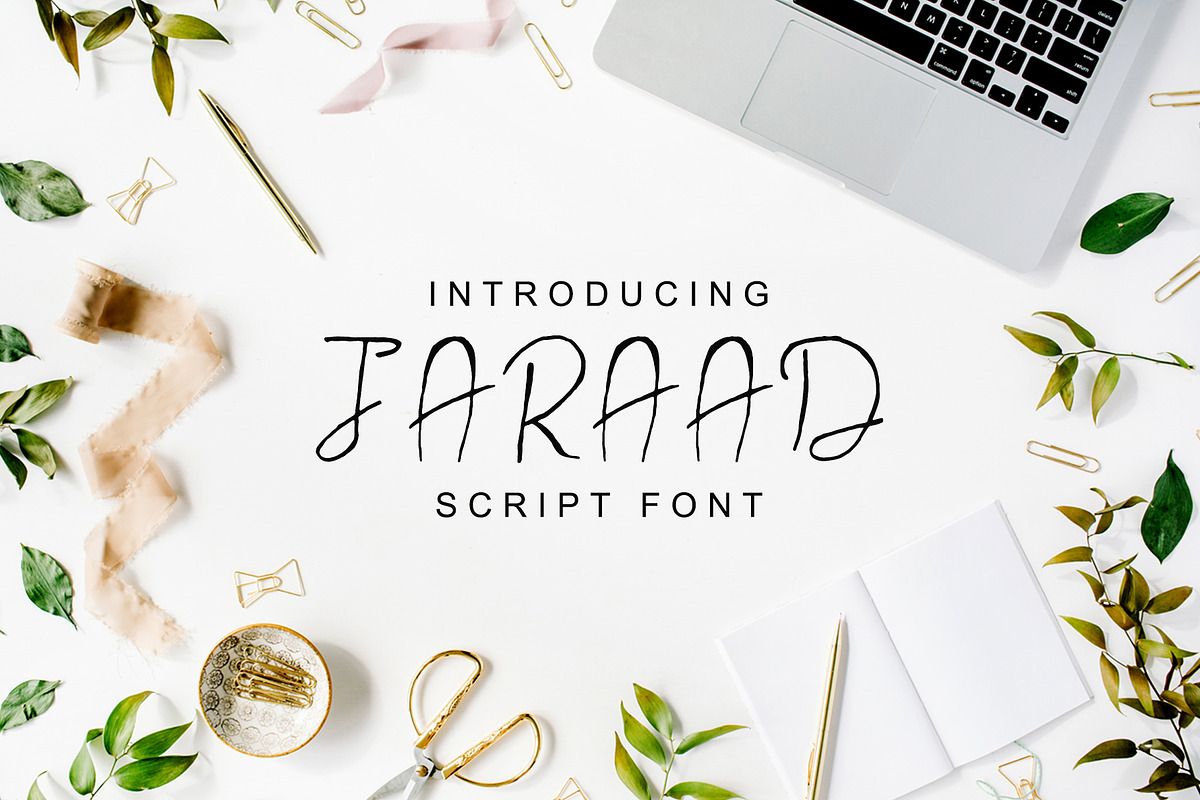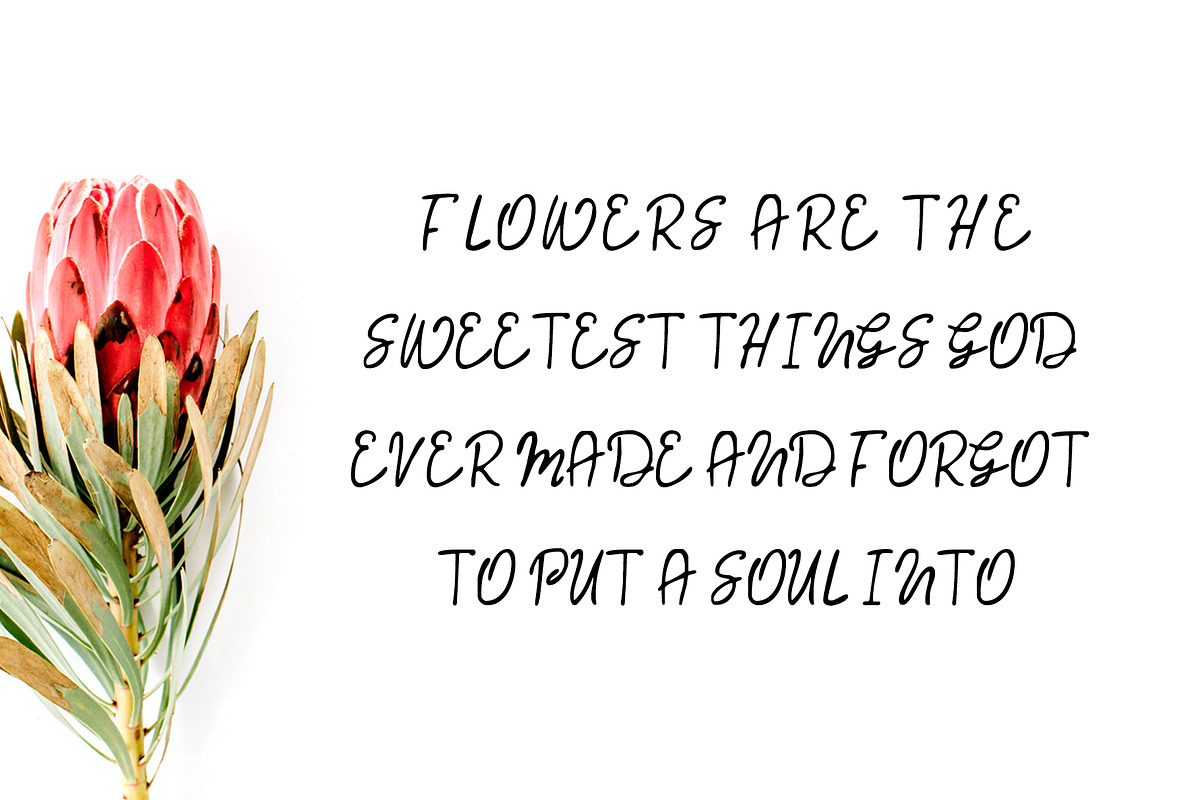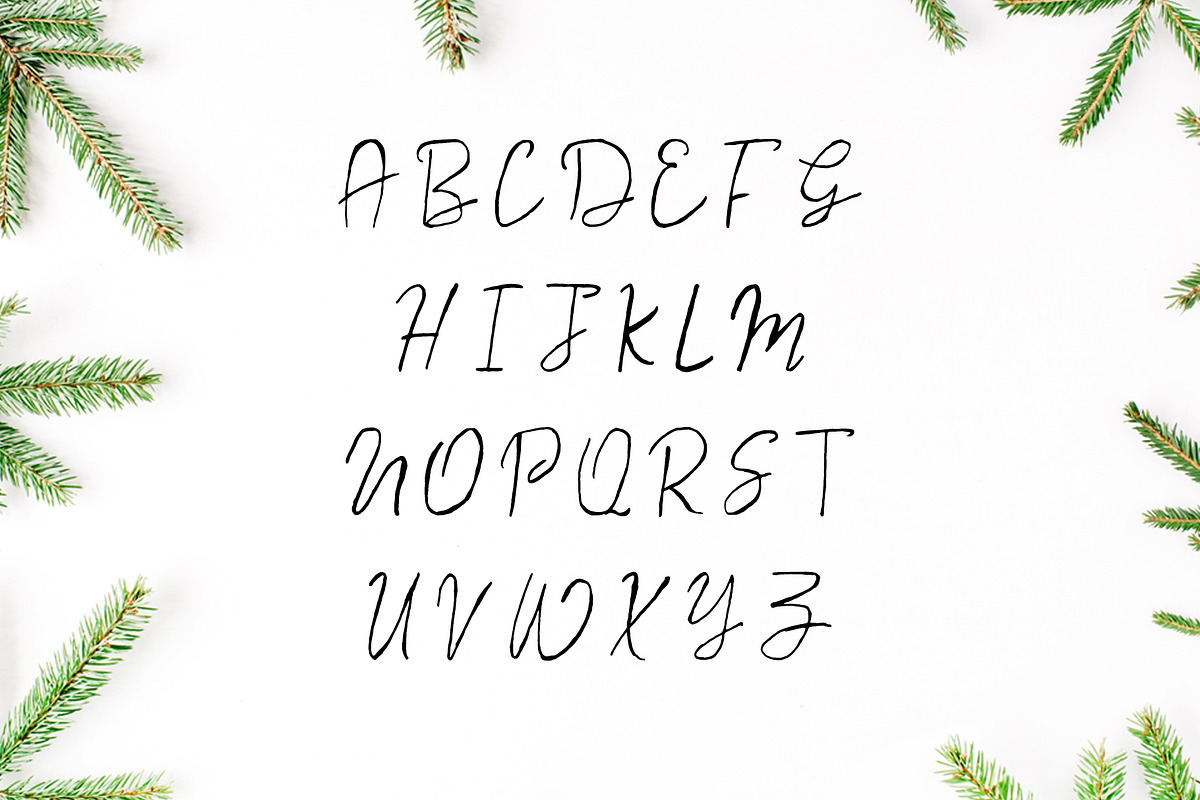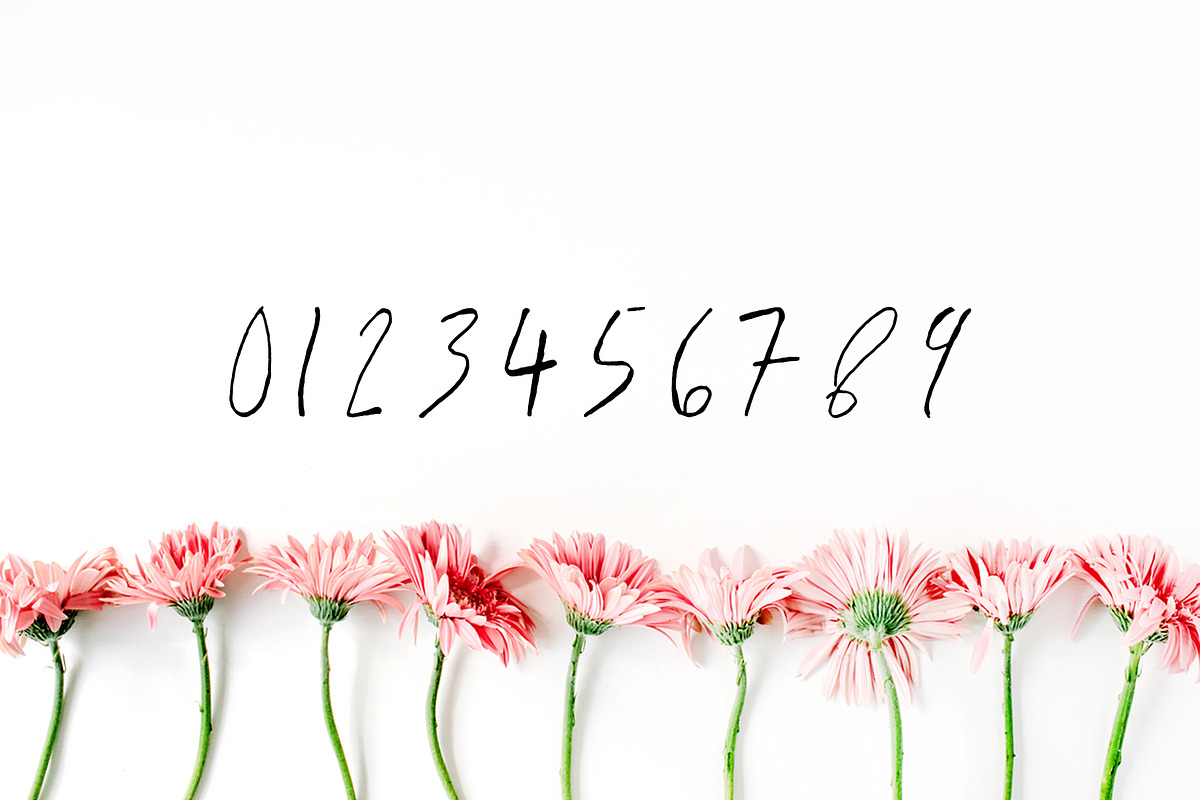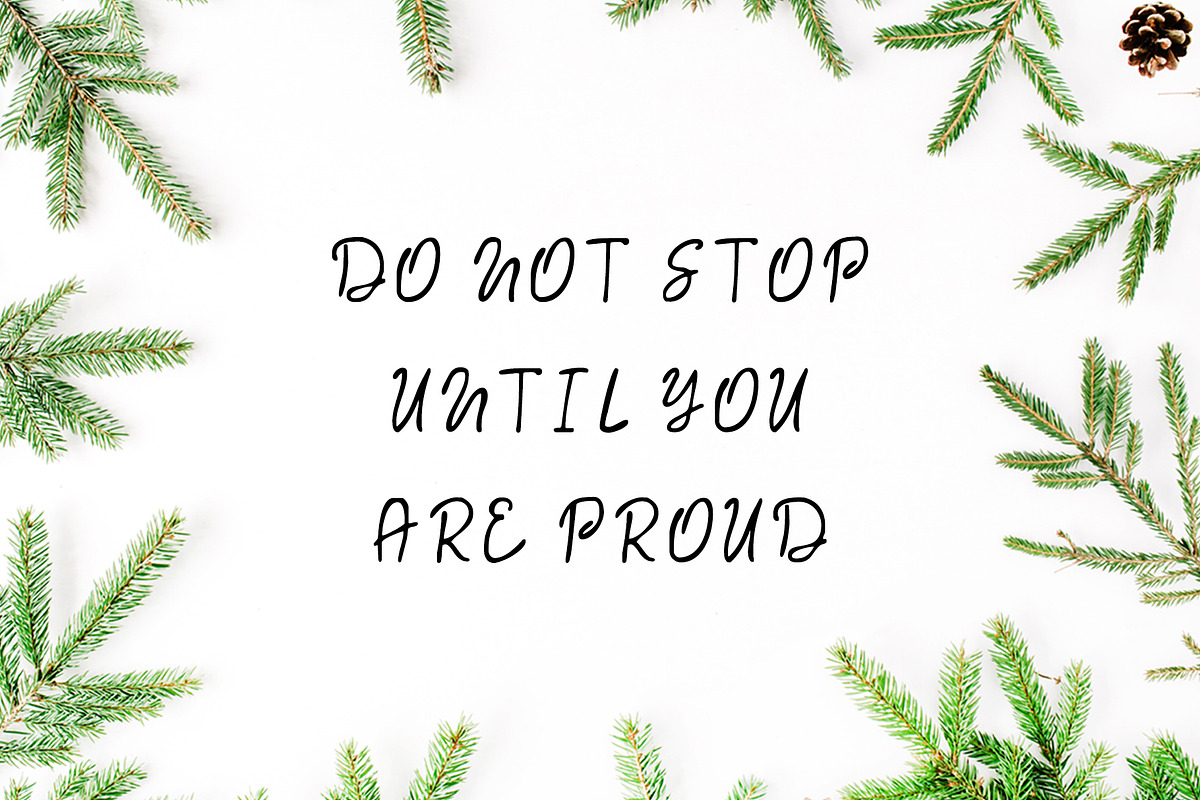
Jaraad Script 4 Font Family Pack
Jaraad Script 4 Font Family Pack by Creativetacos is a font selected for branding, posters, packaging, typography.
- Jaraad Script Typeface is a beautiful handwritten font which contains 4 weights and that is specifically designed for minimal projects.
- Font Weight: Regular, Italic, Outline and Bold
- Jaraad Font Features:
- Uppercase Letters
- Lowercase Letters
- Numbers & Punctuation
Jaraad Script 4 Font Family Pack by Creativetacos fits naturally into Branding, posters, packaging, typography.